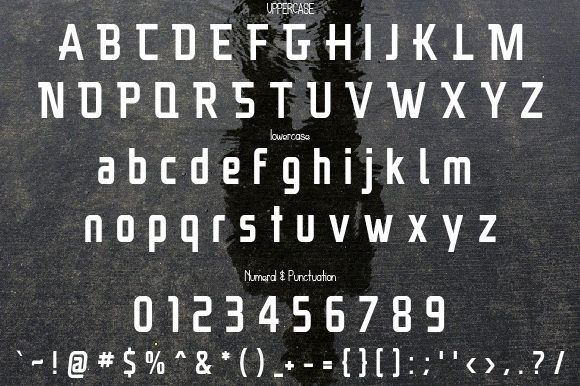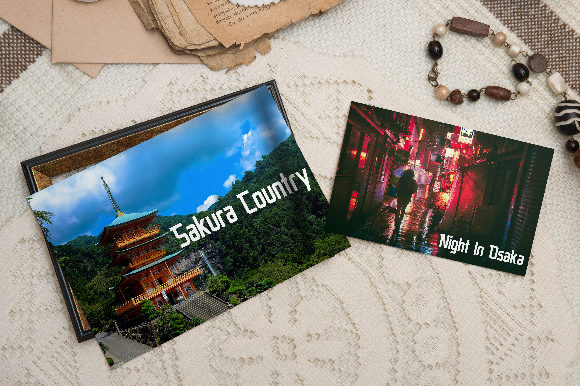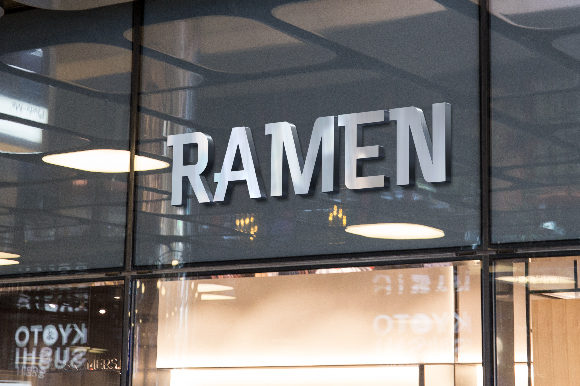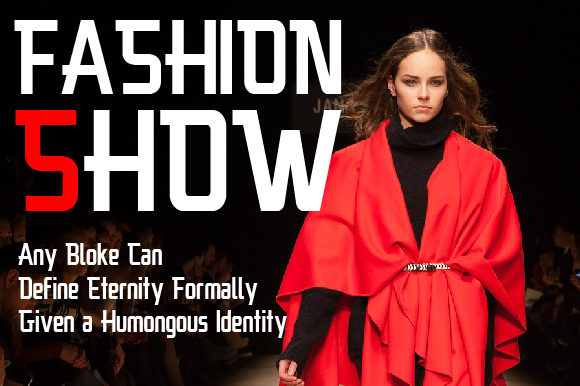
Introduction to Gazebo Font
The Gazebo is a fresh typeface with Japanese nuance.
It can be used for various purposes such as headings, logos, events, t-shirts, quotes, letterheads, signage’s, posters, badges, and much more .
Key Features of Gazebo Font